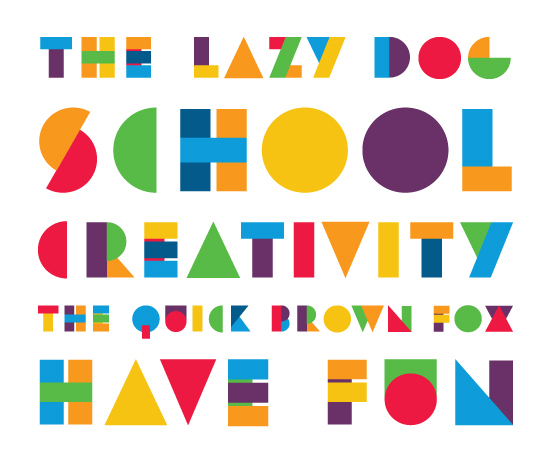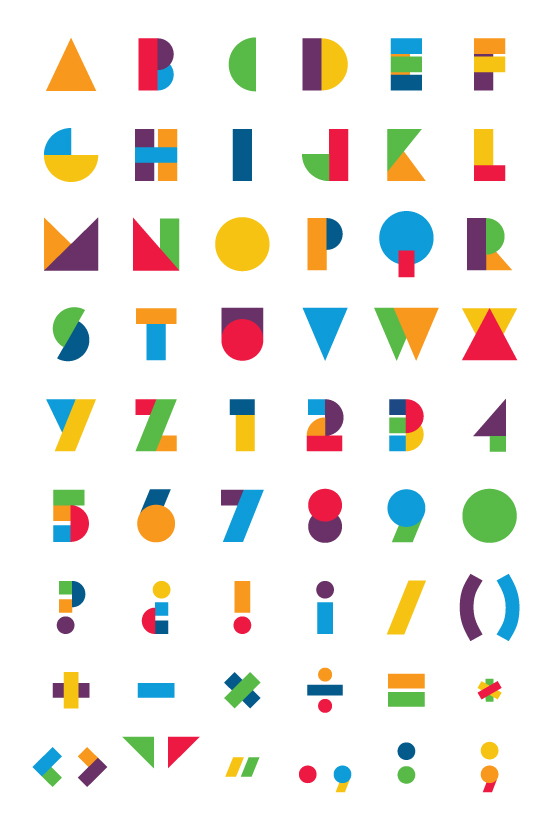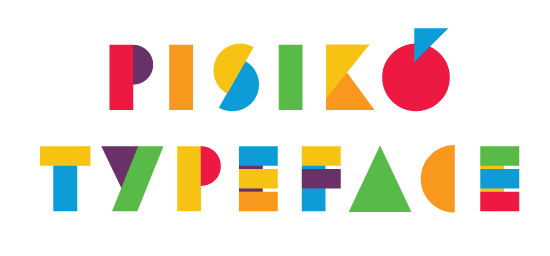
Pisikó
This font is inspired by constructions from basic geometric shapes and I used to make in school as a child.
Designer: Irene Clua Geli
Publisher: Irene Clua Geli